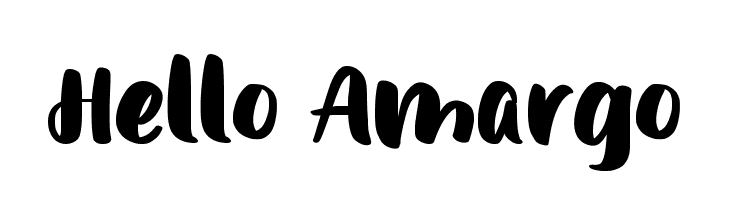
A bold, playful script font with a handwritten feel.
A bold, playful handwritten font with a dynamic and friendly style.
A flowing, cursive font with elegant loops and consistent stroke width.
A playful, handwritten script font with dynamic strokes and smooth connections.
A playful, flowing script font with smooth, cursive strokes and elegant loops.
A casual, elegant handwritten font with fluid, connected characters.
A playful and elegant font combining script and sans-serif elements.
A playful, handwritten font with smooth, rounded edges and a casual vibe.
A playful, hand-drawn font with tall, narrow letters and a whimsical style.
A playful, handwritten script font with a whimsical and fluid style.